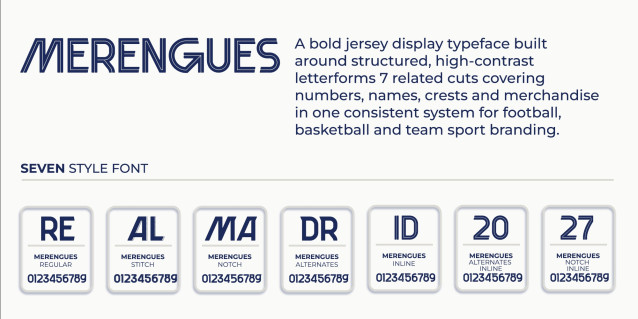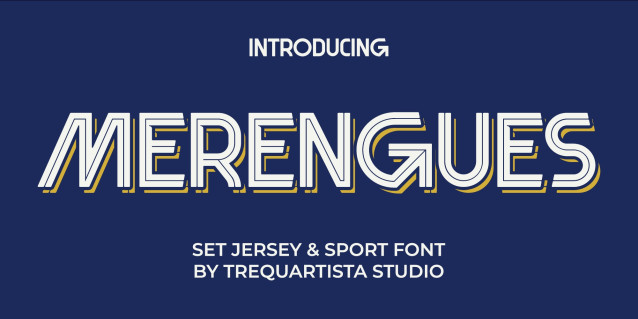
Merengues Font
Merengues Font is a bold, jersey-inspired typeface built on elegance and championship pedigree. Forged from the identity of Madrid — home to one of the most decorated football clubs in the world, nicknamed “Los Merengues” for their iconic all-white kits — this font captures that regal energy through structured, high-contrast letterforms, sharp diagonal cuts, and commanding athletic proportions.
Designed to reflect the grandeur of a packed Bernabéu, the prestige of a winning legacy, and the confidence of a club built for glory, every character in this family is built for impact. Whether applied to jersey names, numbers, crests, or bold display headlines, Merengues delivers a visual presence that is impossible to ignore.
Featuring Regular, Stitch, Notch, and Alternates variations — each with Inline counterparts — Merengues gives designers the freedom to layer, combine, and customize. A complete type system made for powerful visual storytelling.